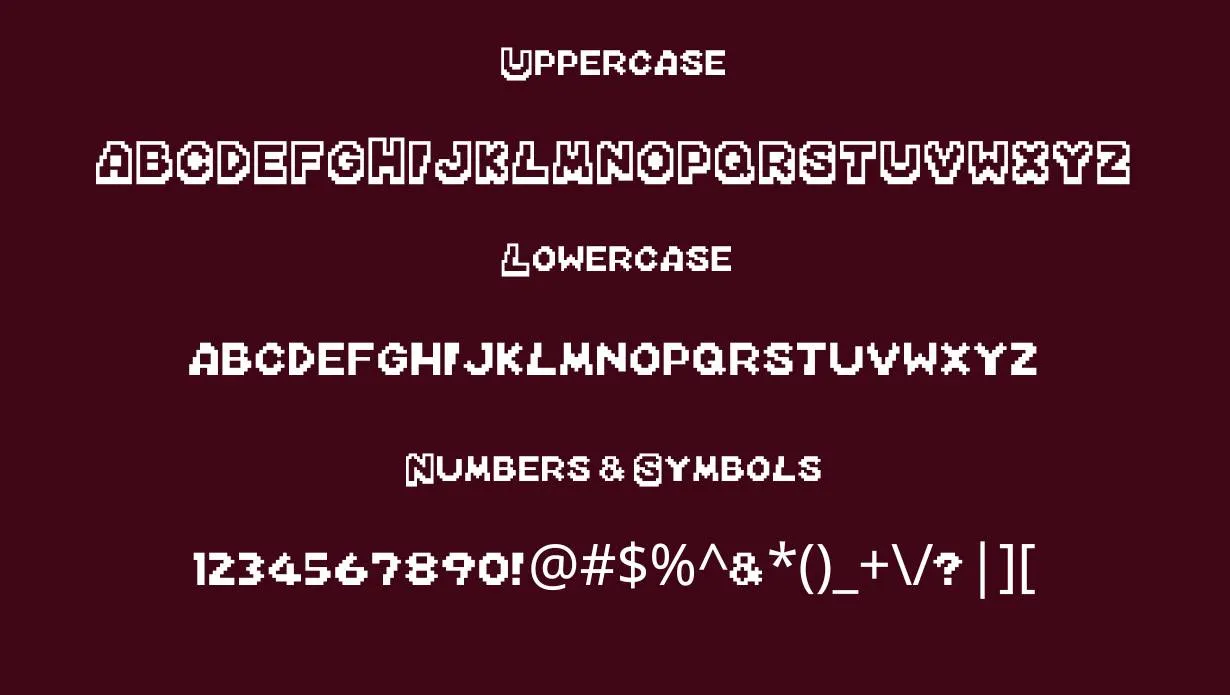
The Mario Kart DS Regular font is a playful and vibrant typeface, inspired by the popular game. It’s frequently used in fan art, posters, or designs related to the gaming world.
This font embodies the adventurous spirit of the game, bringing a lively and energetic vibe to designs, making it perfect for those looking to infuse a fun and dynamic element into their projects. Furthermore, you have the option to explore other fantastic typefaces, such as squirrel font and Beauty Brand Font, that offer unique qualities.